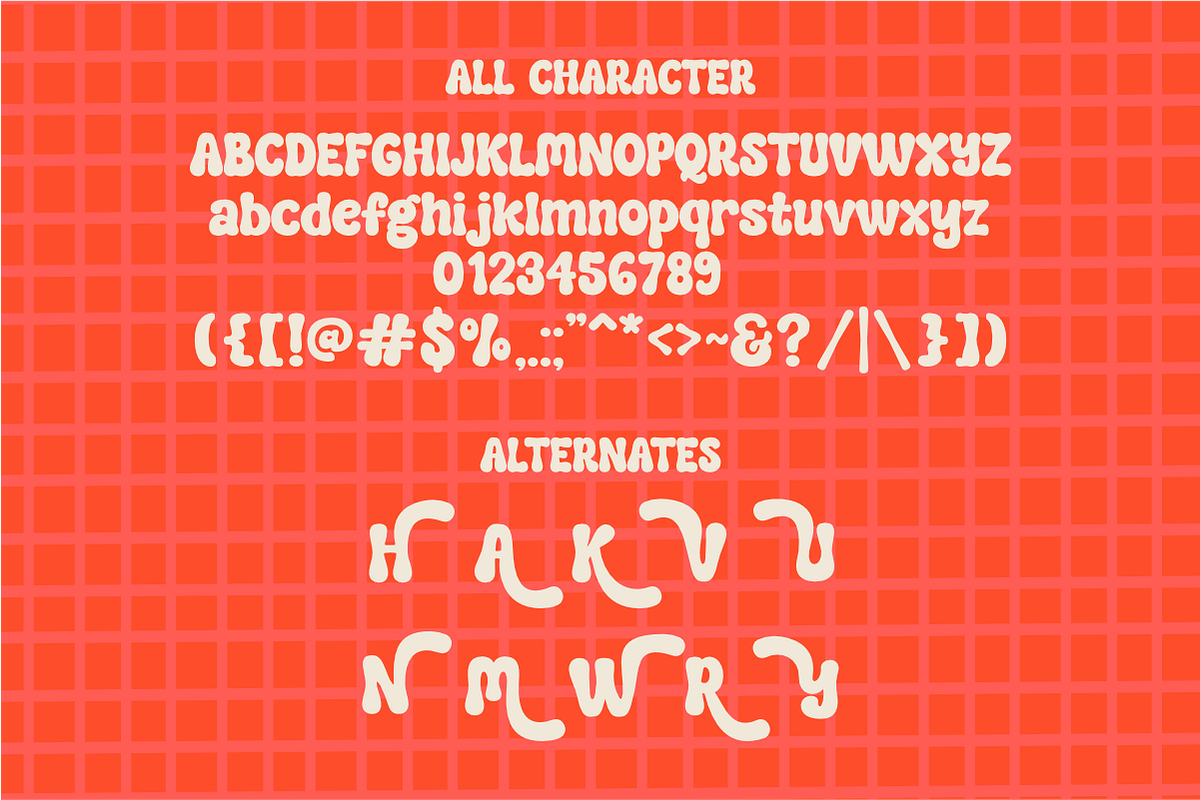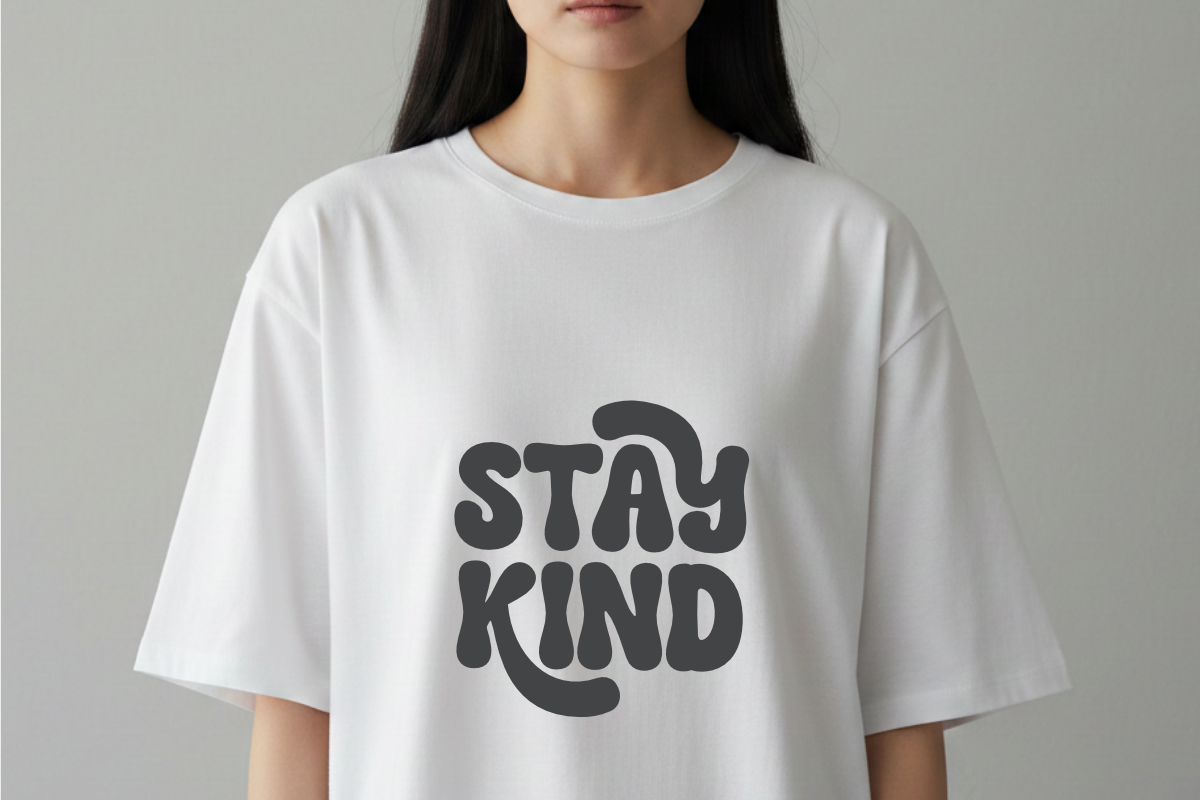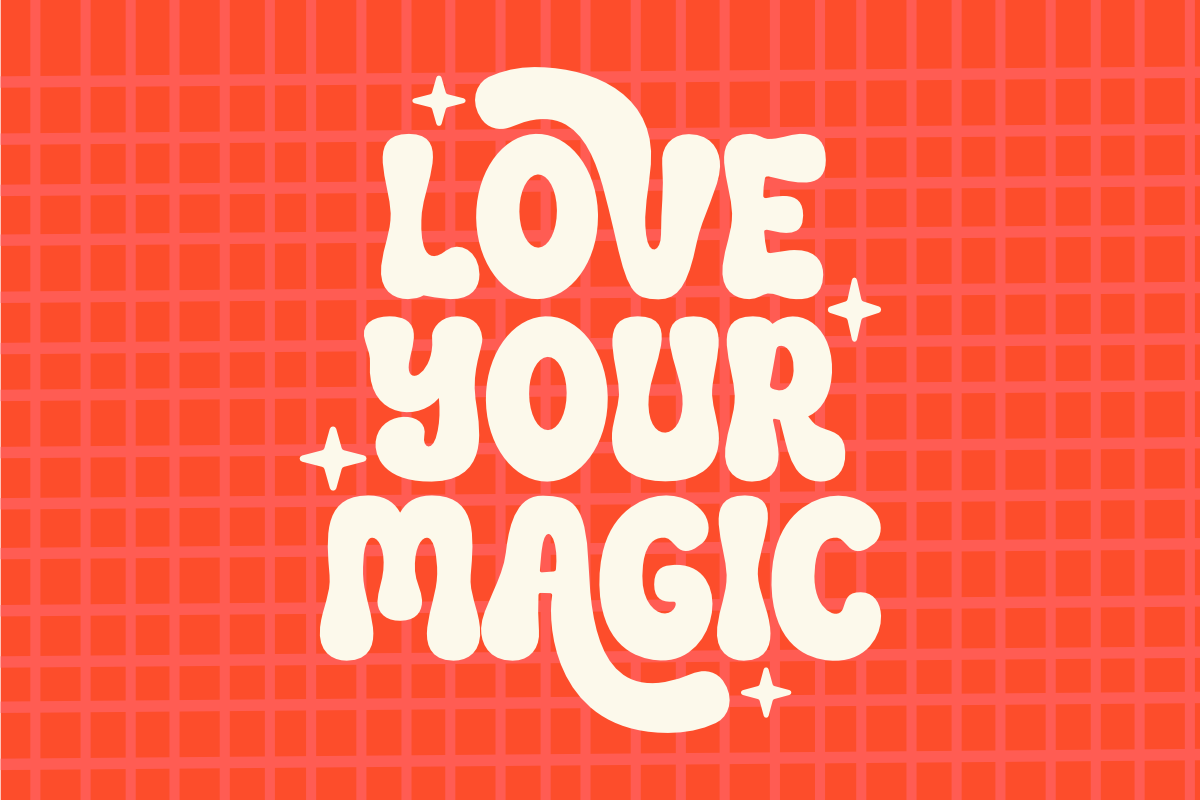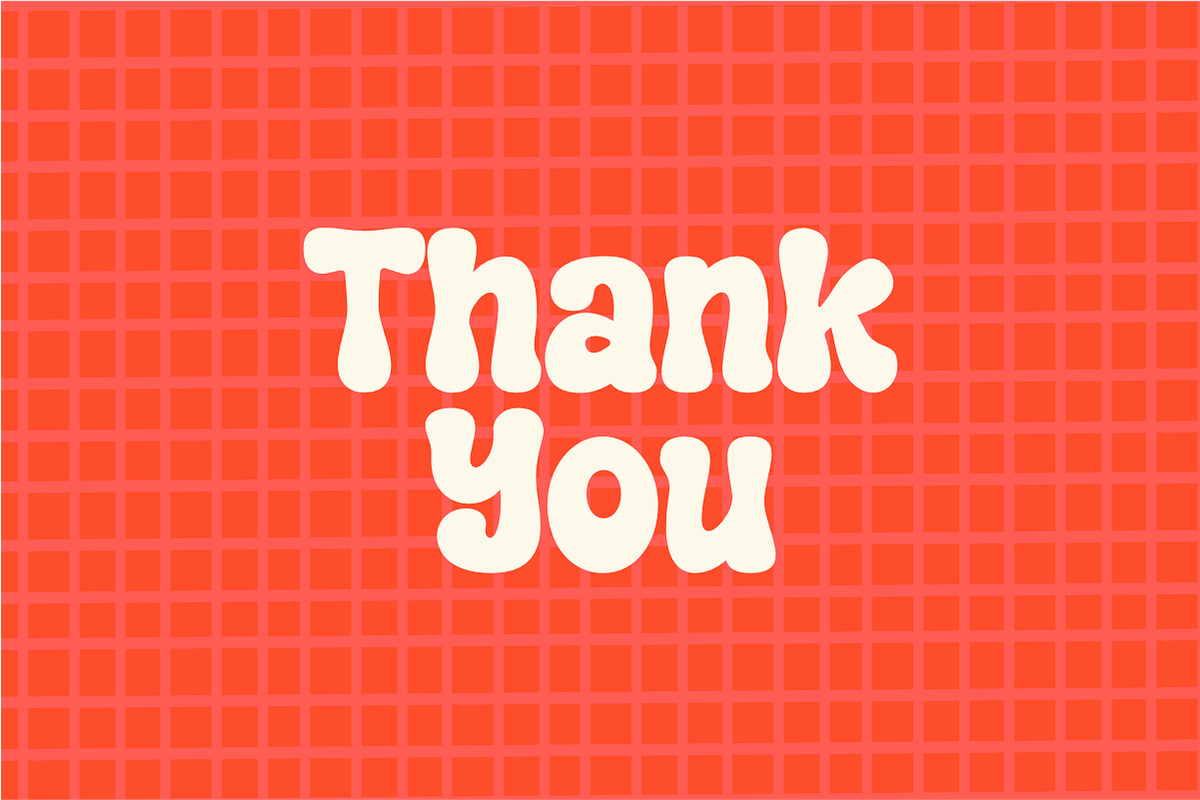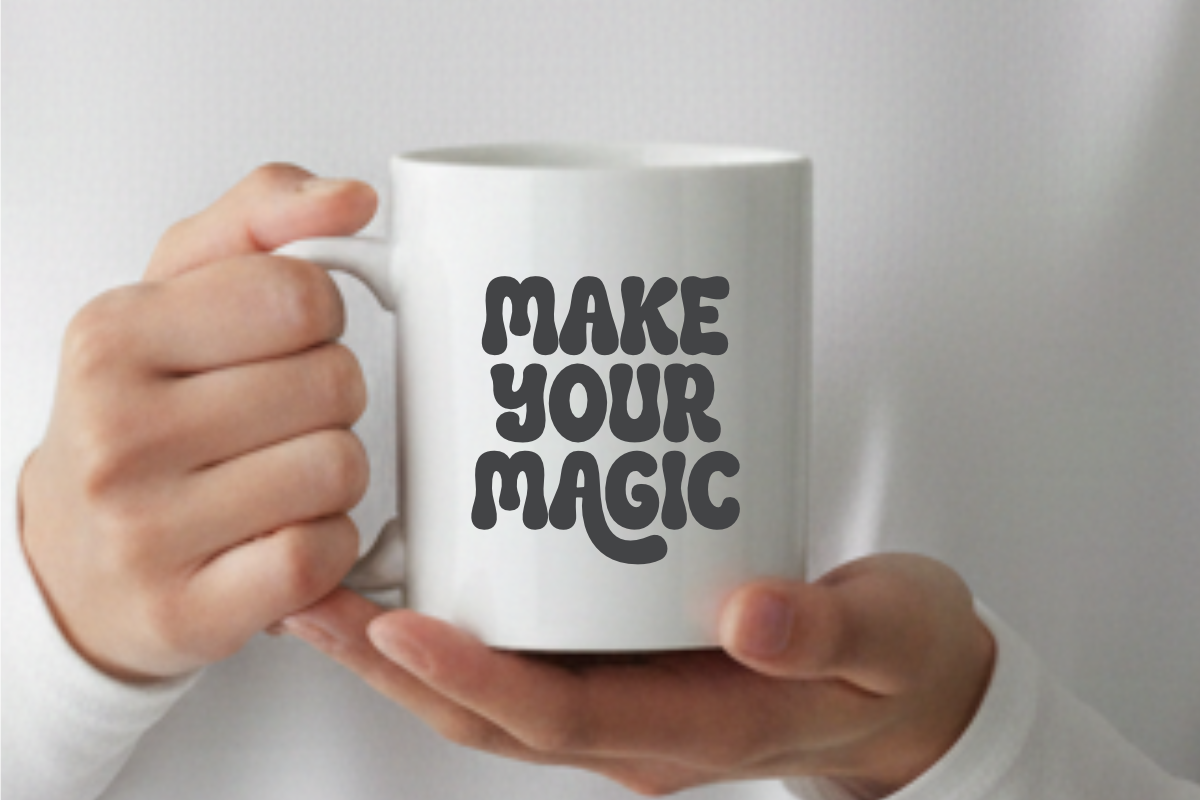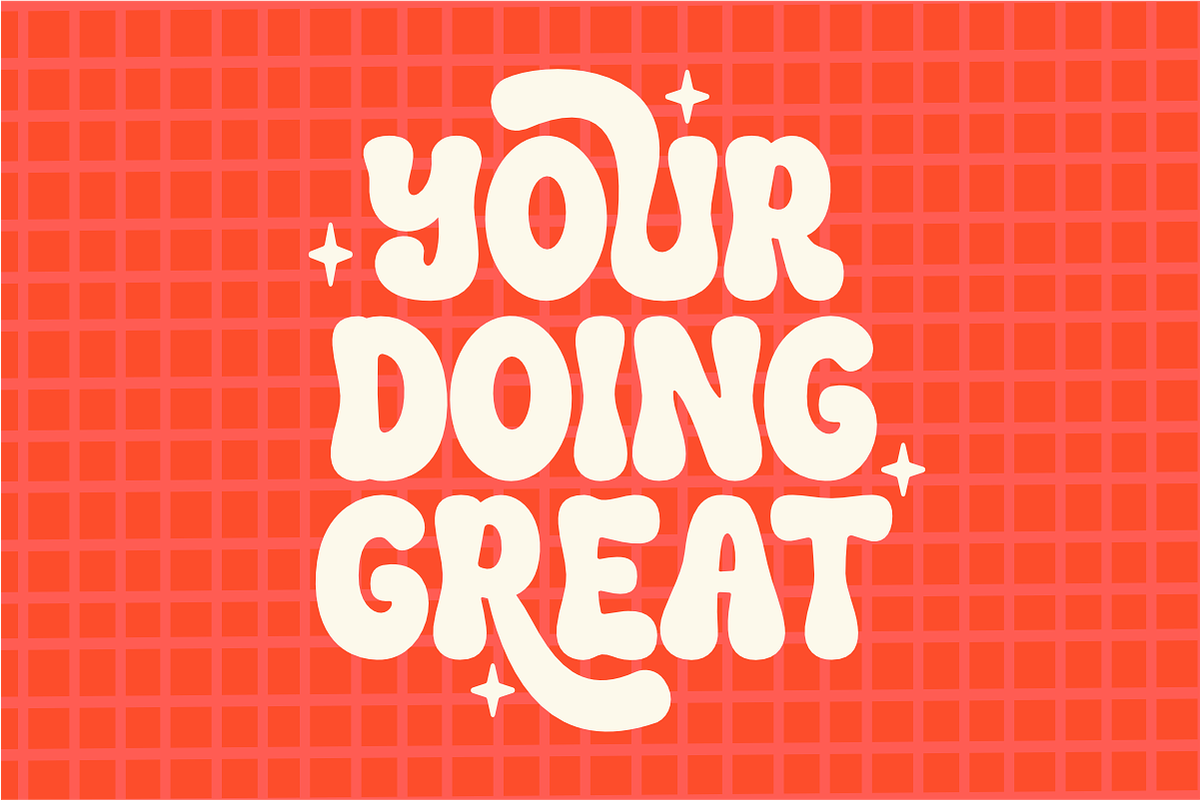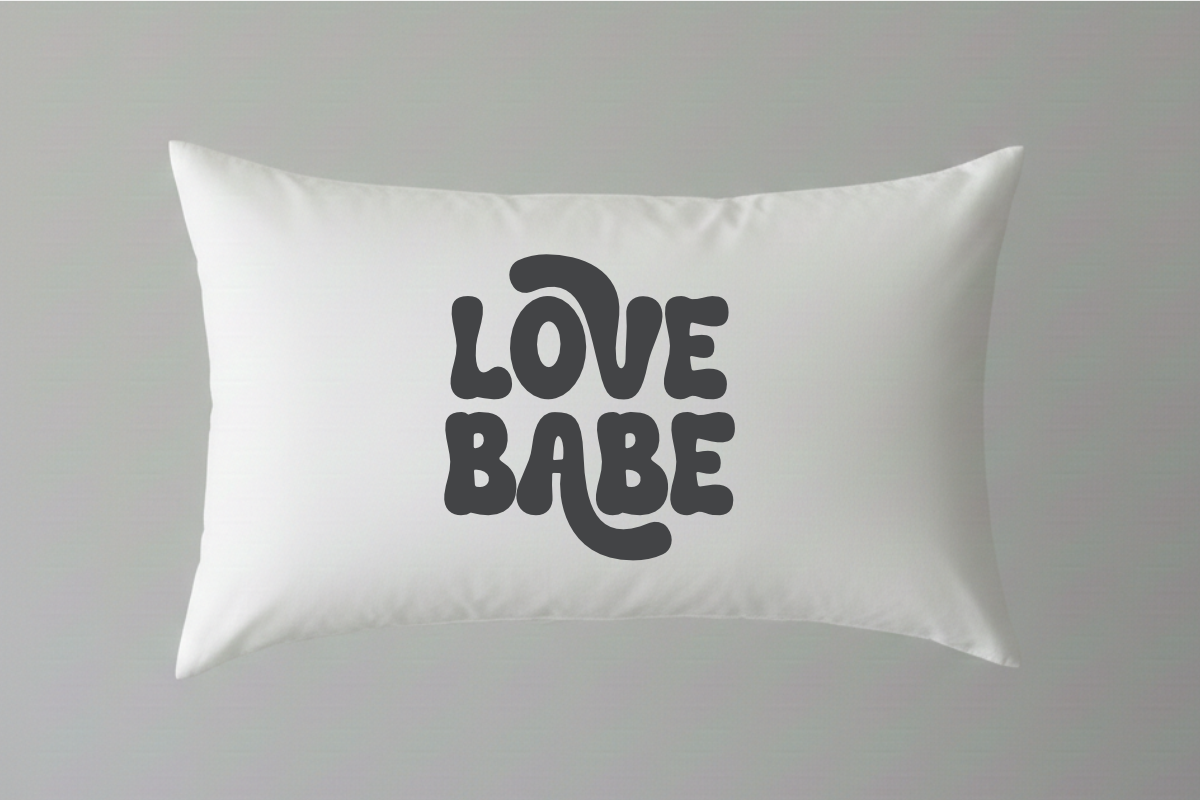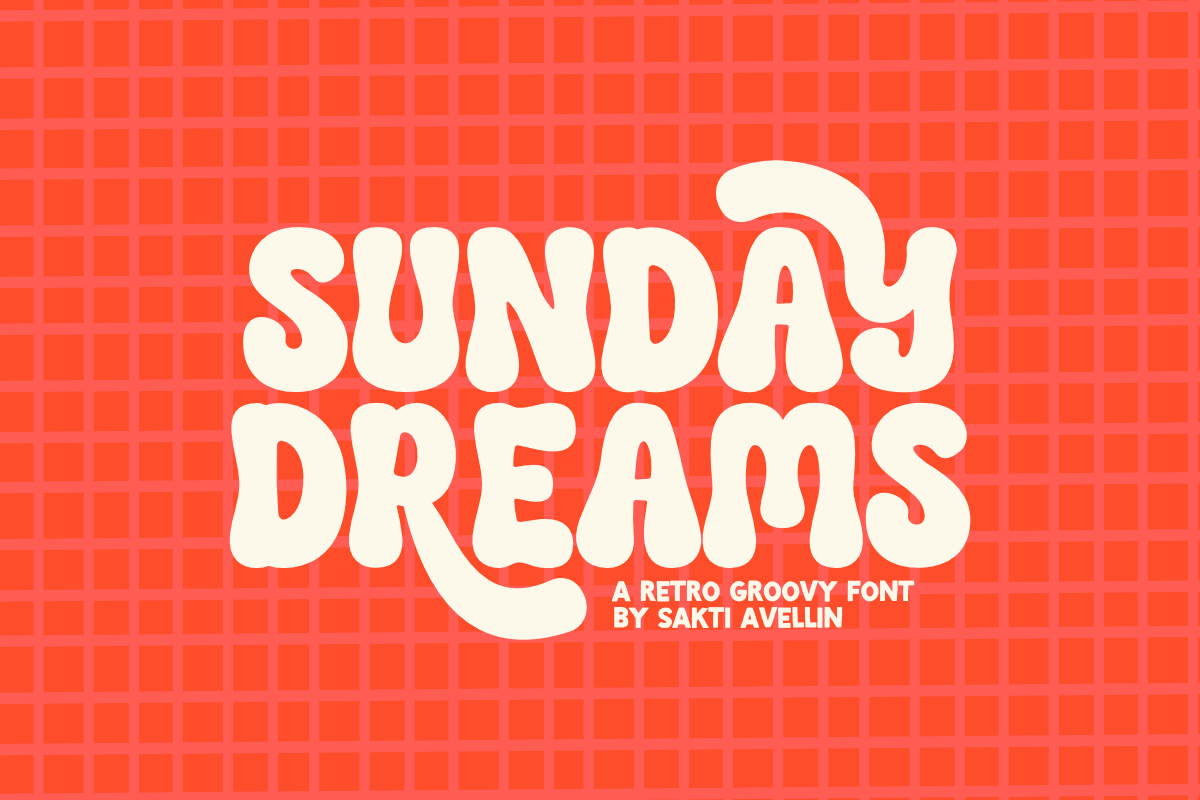
Sunday Dreams - Retro Groovy Font
Sunday Dreams is a soulful and vibrant retro groovy font. This bold display typeface features thick, bubbly letterforms with a rhythmic, wavy flow, making it a perfect choice for vintage-inspired branding, psychedelic posters, funky apparel, and standout social media graphics. Its playful and energetic aesthetic ensures your headlines pop with a unique handcrafted personality. Whether you are designing for music festivals, retro boutiques, or whimsical stickers, Sunday Dreams adds a lively and creative groove to every design.